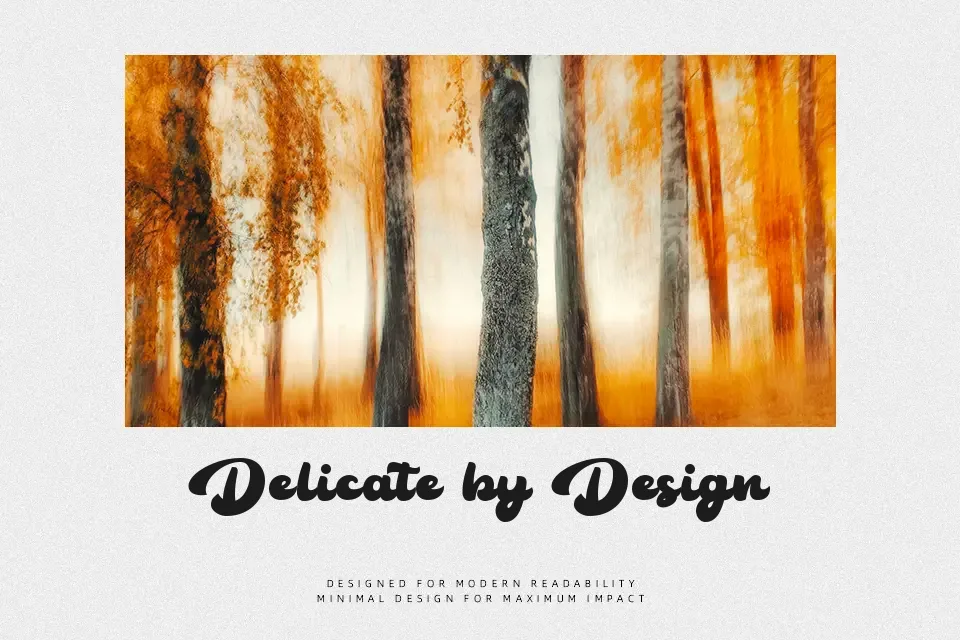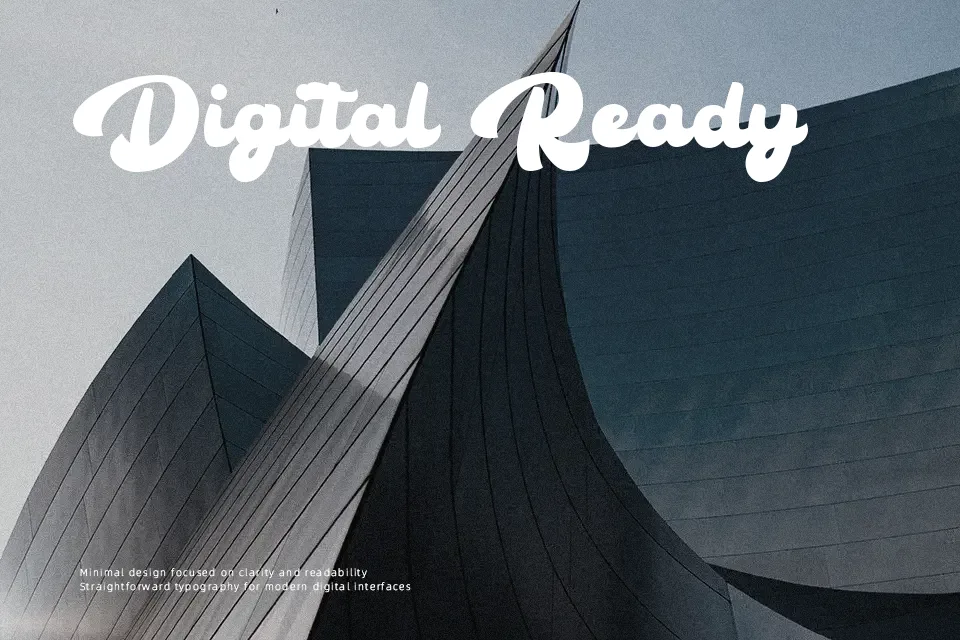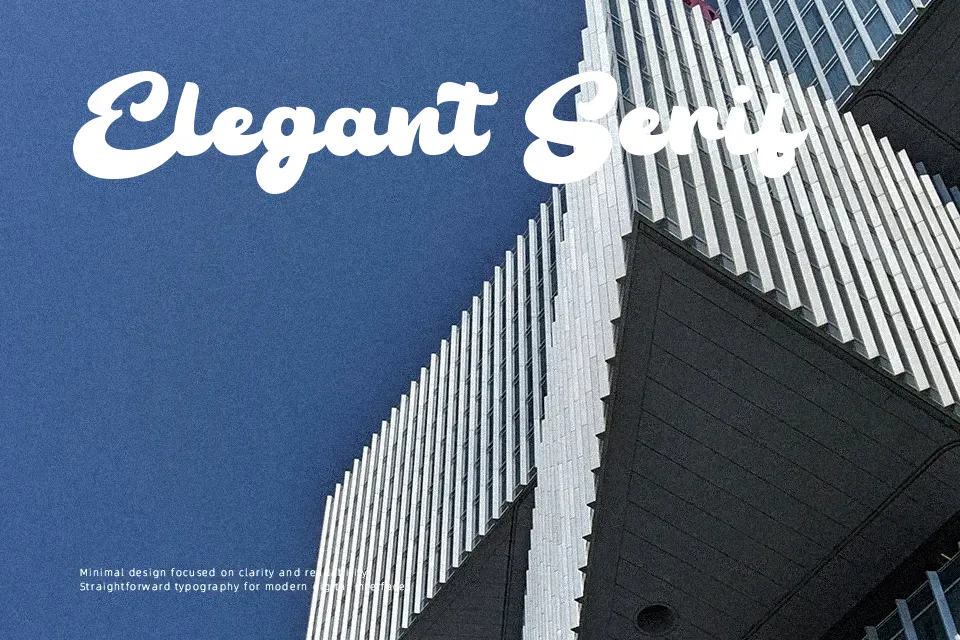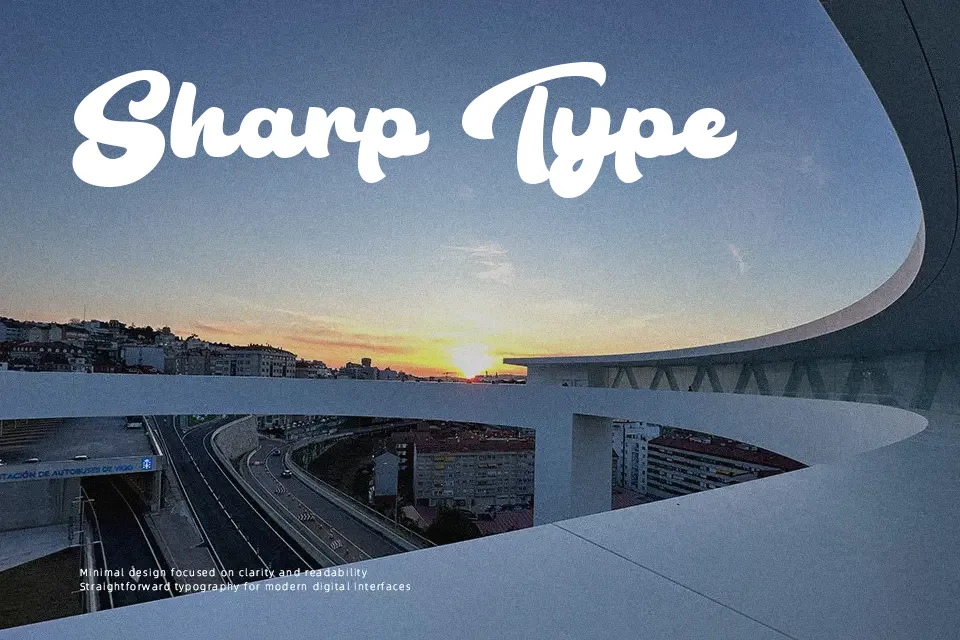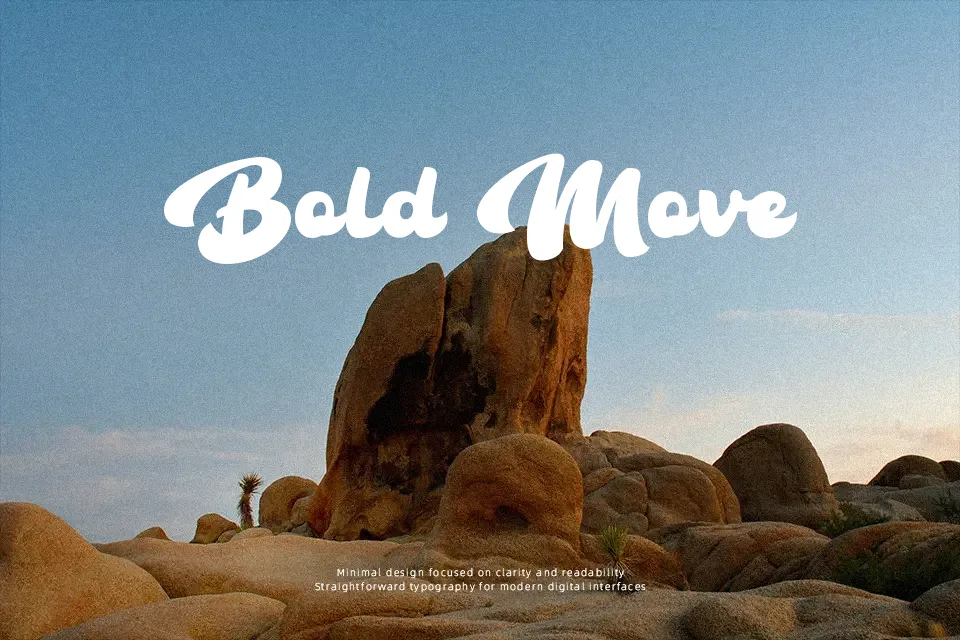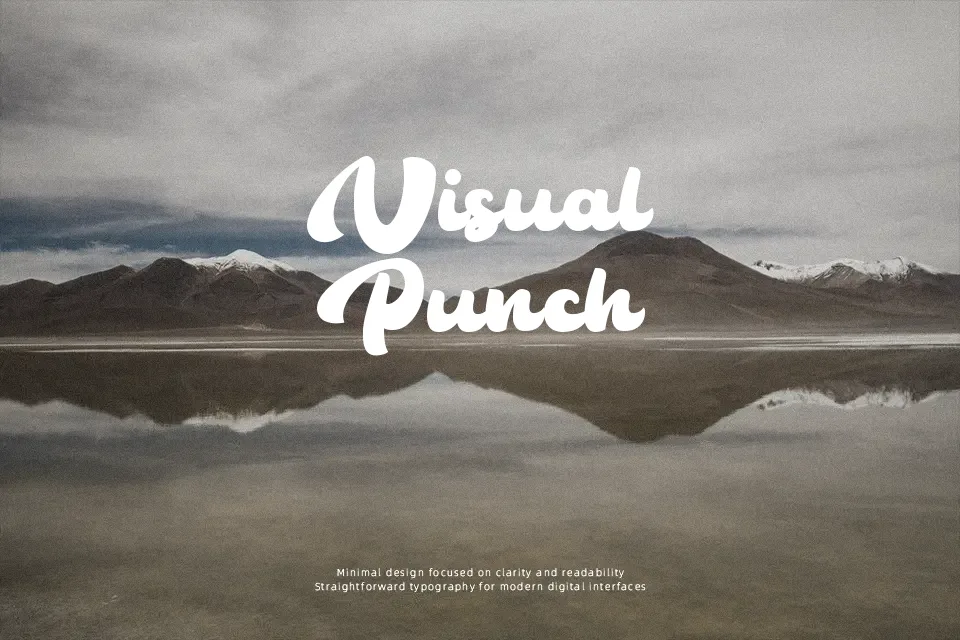
The Bambank Script Font
The Bambank Script Font introduces energetic handwriting characteristics defined by curvaceous ascenders, pronounced descenders, and flowing entry strokes that link smoothly across adjacent letterforms. Stroke contrast remains dynamic throughout the alphabet, shifting from narrow hairlines into swollen loops and plump terminal curves. Moderately tight spacing maintains coherent word shapes, preserving strong visual momentum across brief statements and decorative titles. However, the complex flourishing and dense character rhythm compromise legibility in multi-line body paragraphs and compact editorial captions. The typeface performs best when displayed at larger sizes, allowing its rhythmic cursive swashes to achieve maximum visual impact without crowding surrounding design elements.
Best For: retro apparel graphics, beverage packaging labels, merchandise brand marks, music festival banners
Not Ideal For: continuous body text, mobile interface labels, tabular numerical spreadsheets, dense legal disclaimers
Perfect for branding, headline, and logo, with a dynamic and brush style.